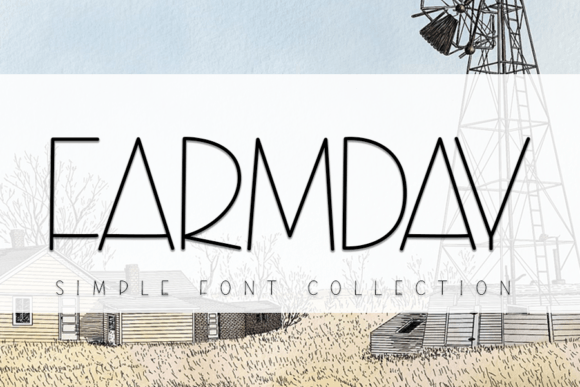
Welcome to the world of Farmday Font, the ultimate Sans Serif font family that breathes life into your creative endeavors. Experience the fusion of classic elegance with a modern twist, crafted specifically to elevate your fashion website to new heights of visual appeal. Immerse yourself in a world of boundless possibilities, where Farmday Font becomes your trusted companion in expressing your unique style.
Farmday Font's clean lines and crisp edges exude a timeless sophistication that complements the dynamic energy of the fashion industry. Its versatility knows no bounds, seamlessly adapting to a myriad of creative applications, from eye-catching logos and captivating social media posts to stunning product packaging and captivating presentations.
With Farmday Font, you're not just downloading a font; you're embarking on a journey of creative exploration, where your imagination takes center stage. Whether you're a seasoned designer or just starting, Farmday Font's user-friendly nature makes it effortless to bring your vision to life.
As you craft your fashion website, Farmday Font becomes your eloquent narrator, conveying your brand's story with grace and clarity. Its inherent versatility allows you to create captivating headlines that demand attention, informative product descriptions that entice your audience, and call-to-actions that inspire them to take the next step.
The fashion industry is a realm of inspiration, where trends come and go like the wind. With Farmday Font as your creative ally, you can effortlessly adapt to the ever-changing landscape, ensuring your website remains a beacon of innovation and style. Its timeless appeal transcends fleeting trends, making it a font that will continue to inspire for years to come.
So, embrace the transformative power of Farmday Font and redefine the boundaries of your fashion website. Let your creativity soar as you weave captivating narratives through its elegantly crafted characters. Join the ranks of those who have discovered the boundless potential of Farmday Font and unlock a world of endless creative possibilities.